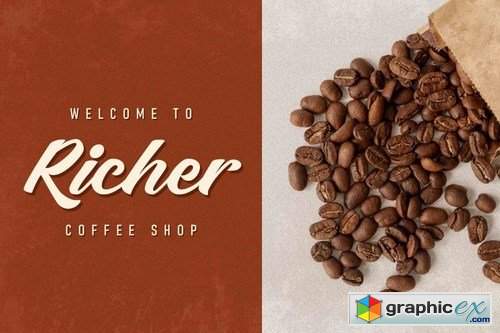
Mentality - Authentic Bold Script
Introducing our latest display typeface called Mentality A unique Fonts with vintage taste can make your logotype become more interesting. A bold script that will stands out from the crowd! Perfect to be used as logotype, badge and label!. inspired by the decorative arts and architecture movement